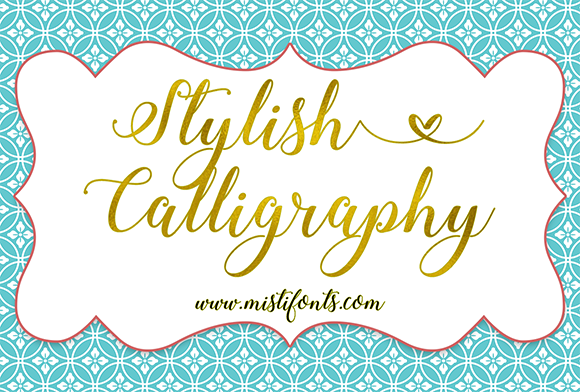
HomeScript FontsStylish Calligraphy Font Script Fonts Stylish Calligraphy Font FacebookXPinterestWhatsApp About Stylish Calligraphy Font Stylish Calligraphy is an elegant, calligraphy font that is perfect for your design and craft projects! DOWNLOAD NOW People also explored Solaris Font Growsans Font Delvon Semi Bold Font Tenagher Farmhouse Font Morning House Font Baby Live Font Motobats Monogram F | Monofont Caps F Font Lambrella Font 284 0 TagsStylish Calligraphy Font Previous articleThe Heart of Everything FontNext articlePrincess Amelia Font LEAVE A REPLY Cancel reply Comment: Please enter your comment! Name:* Please enter your name here Email:* You have entered an incorrect email address! Please enter your email address here Website: Save my name, email, and website in this browser for the next time I comment. Personal Use Free Vanity Personal Use Free Read more about this font Bajt Rounded Personal Use Free Read more about this font Little Pixel Personal Use Free Read more about this font Spaghetti Personal Use Free Read more about this font BLOG How to Install and Use Fonts on Windows, macOS, and Web Projects How to Install and Use Fonts on Windows, macOS, and Web Projects Fonts are a crucial part of design and branding. Whether you’re designing a... Exploring Font Trends Modern Sans-Serif Fonts That Brands Love in 2025 Using Fonts in Digital Marketing: Tips to Strengthen Your Brand Identity